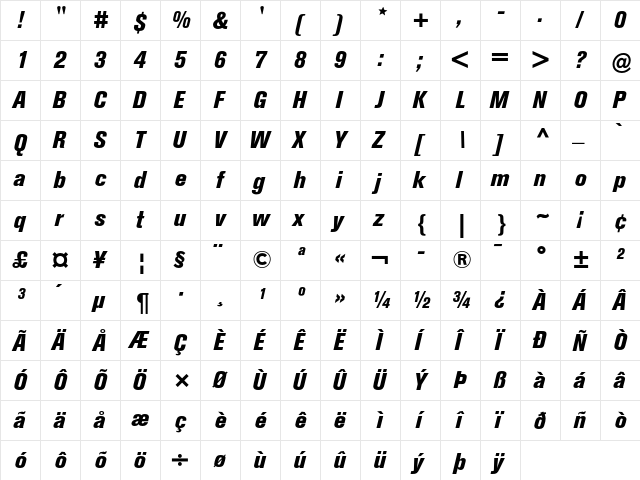
Berthold Akzidenz Grotesk Extra Bold Condensed Italic Font Preview
Design Context for Berthold Akzidenz Grotesk Typeface
Berthold Akzidenz Grotesk takes a clean, functional approach — its unadorned letterforms prioritise legibility and work reliably across screen and print environments. The dynamic lean of this cut emphasises speed and emphasis in any layout. Its bold stroke weight gives it real presence on the page. The condensed width makes it efficient for tight spaces without sacrificing legibility.
Well-suited to navigation labels, product packaging, and anywhere legibility at scale is essential.
Font Pairing: Use Berthold Akzidenz Grotesk for headlines alongside a lighter-weight sans or serif for body copy to establish clear visual hierarchy.
Pro Tip: Use Berthold Akzidenz Grotesk tightly set in headlines and banners — its condensed proportions make it ideal for maximum impact in minimum horizontal space.